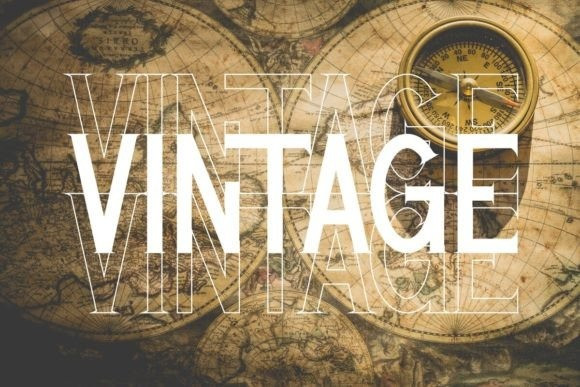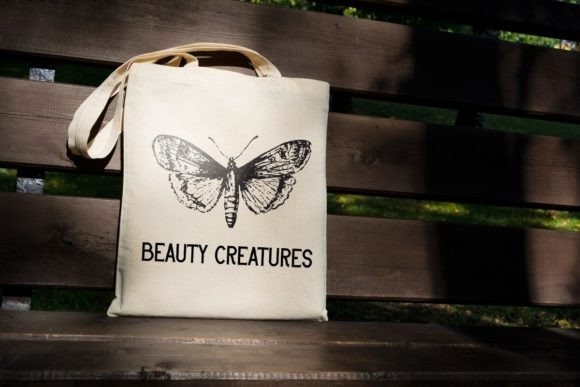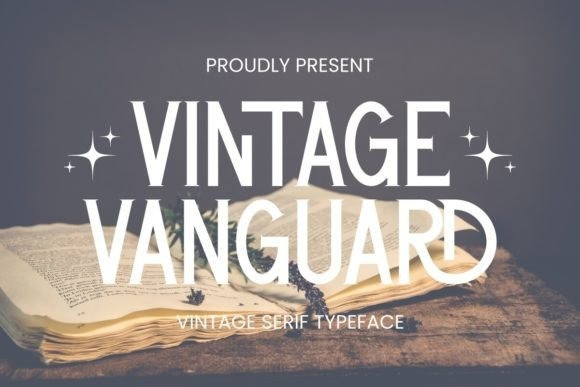
Vintage Vanguard Font
Vintage Vanguard Font, a font with a vintage, manly, masculine style. This font is cool for quotes, t-shirts, titles, pouches, posters, tote bags, etc